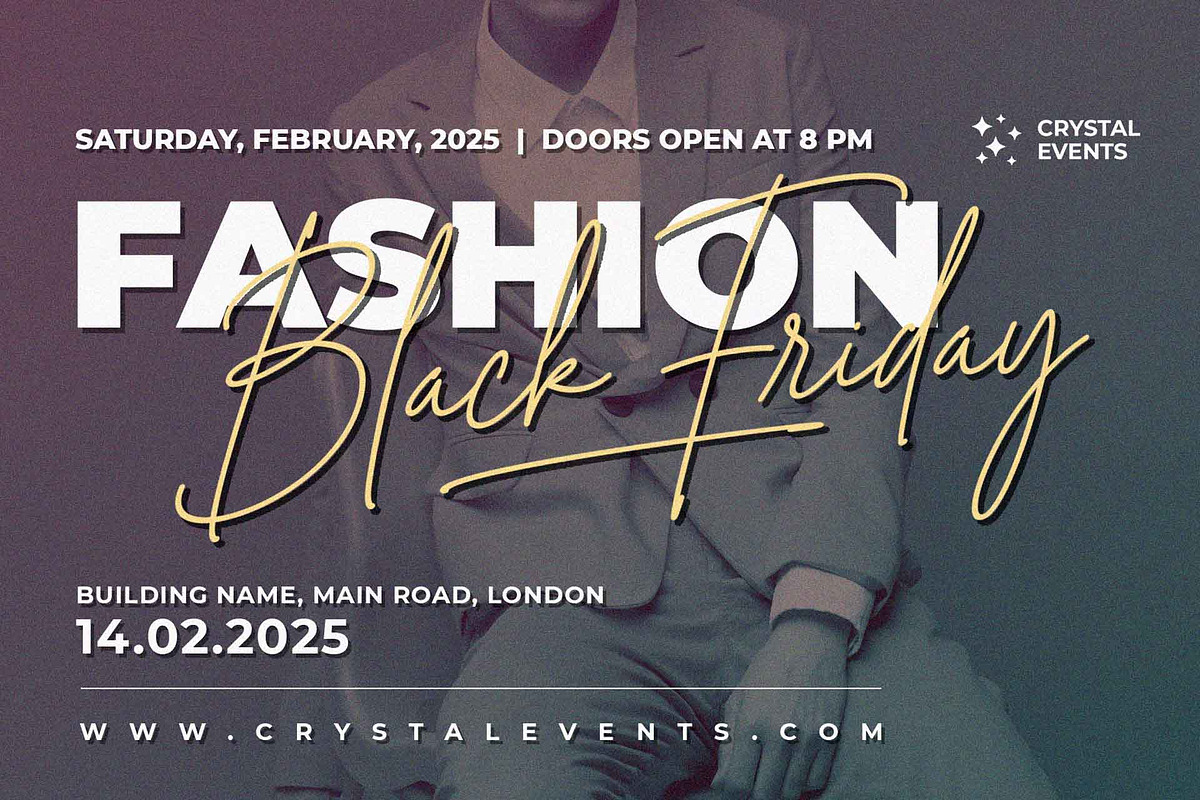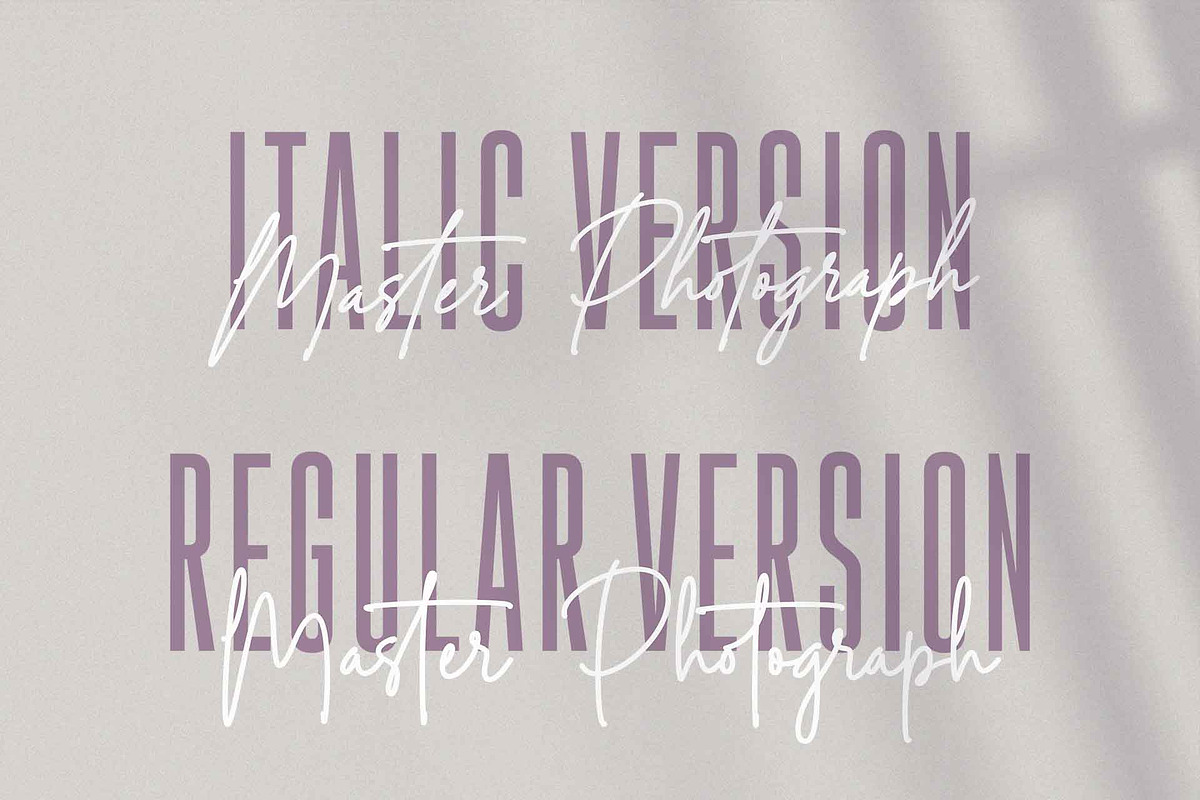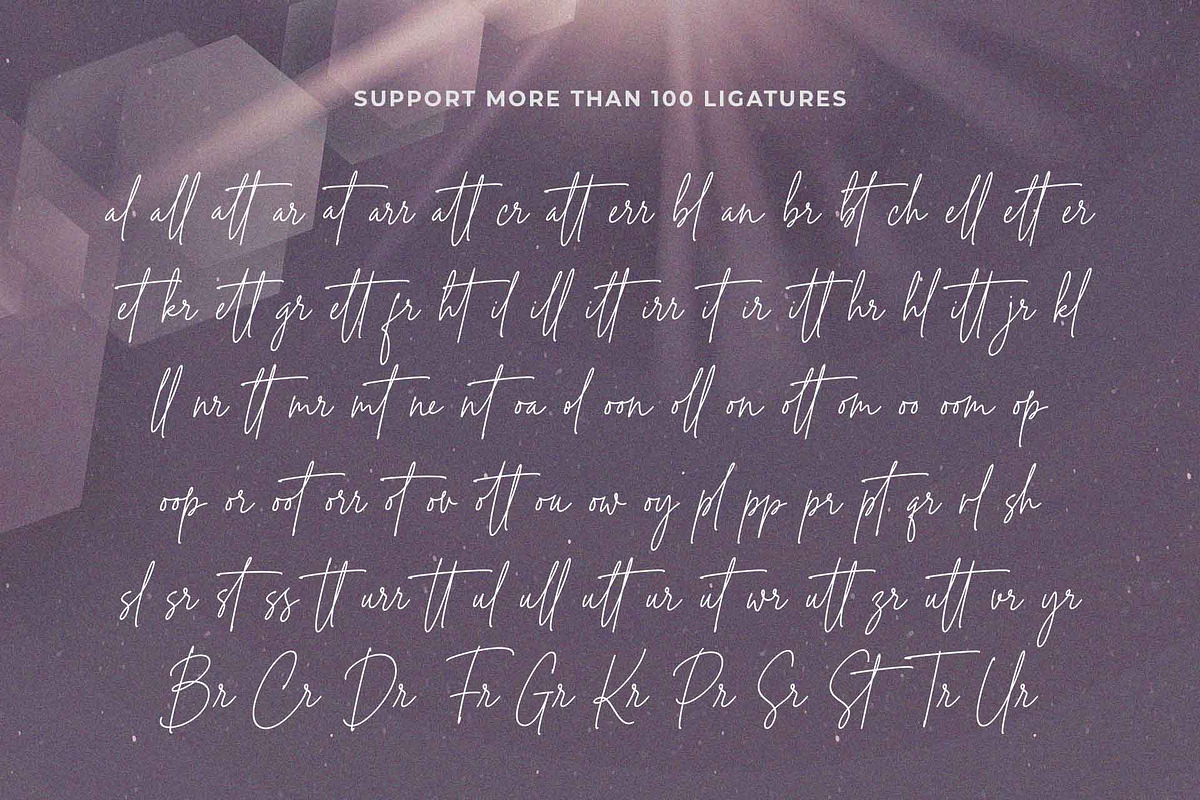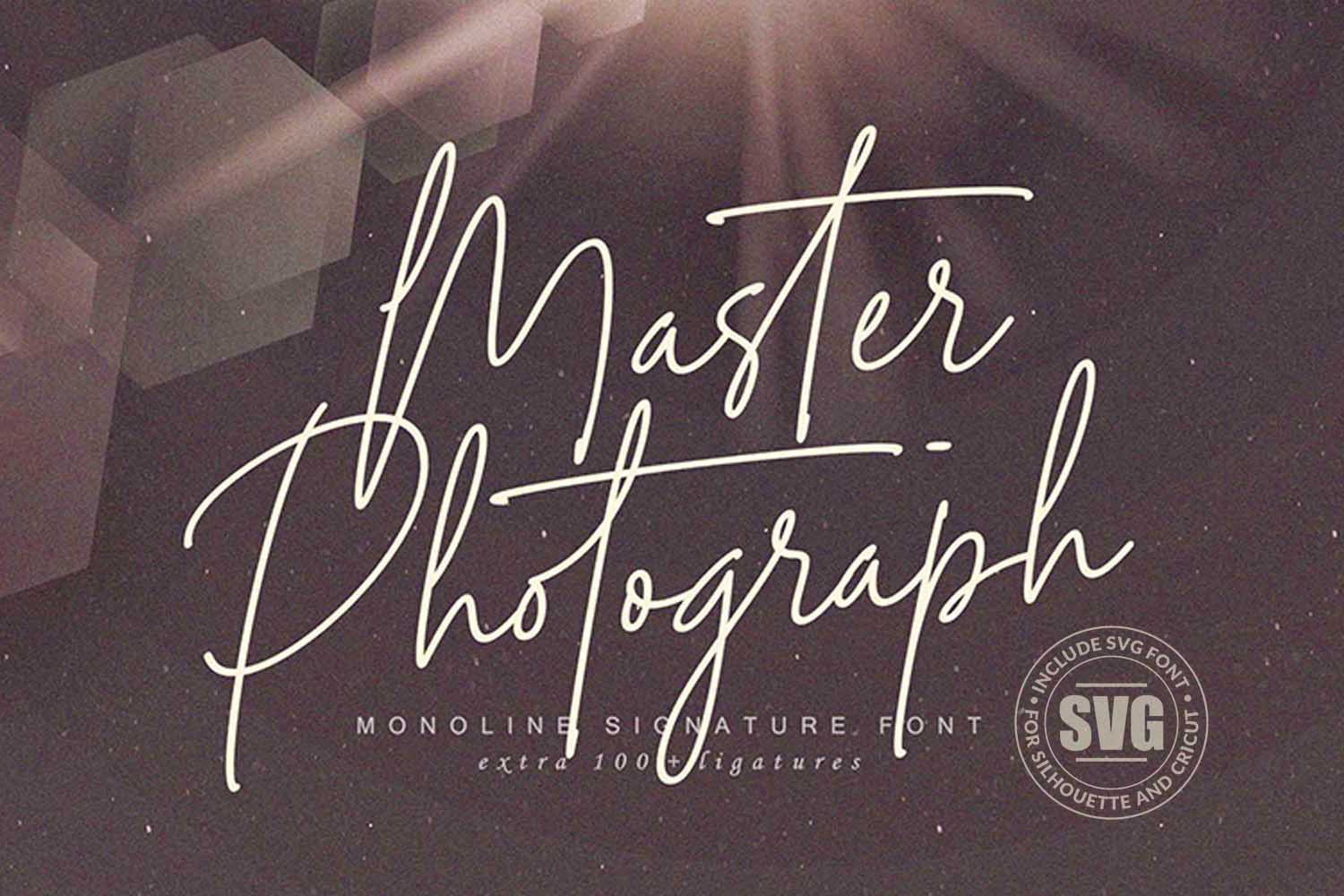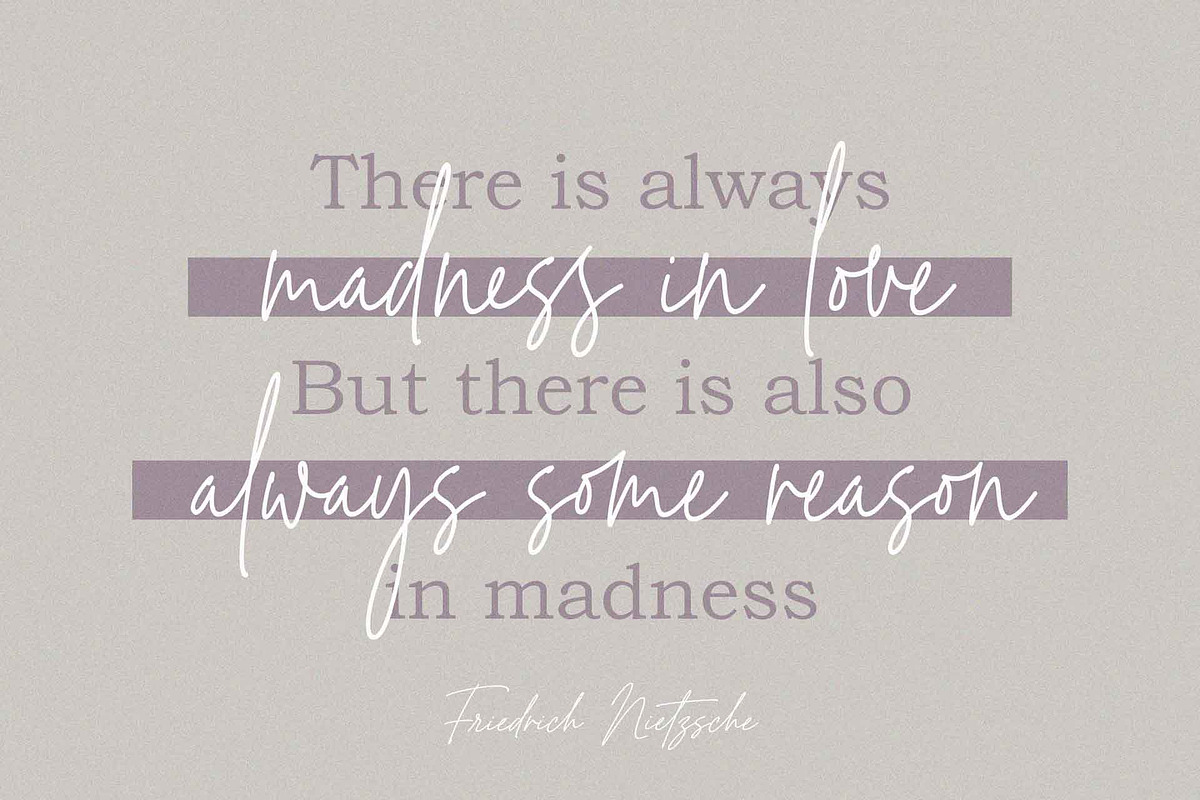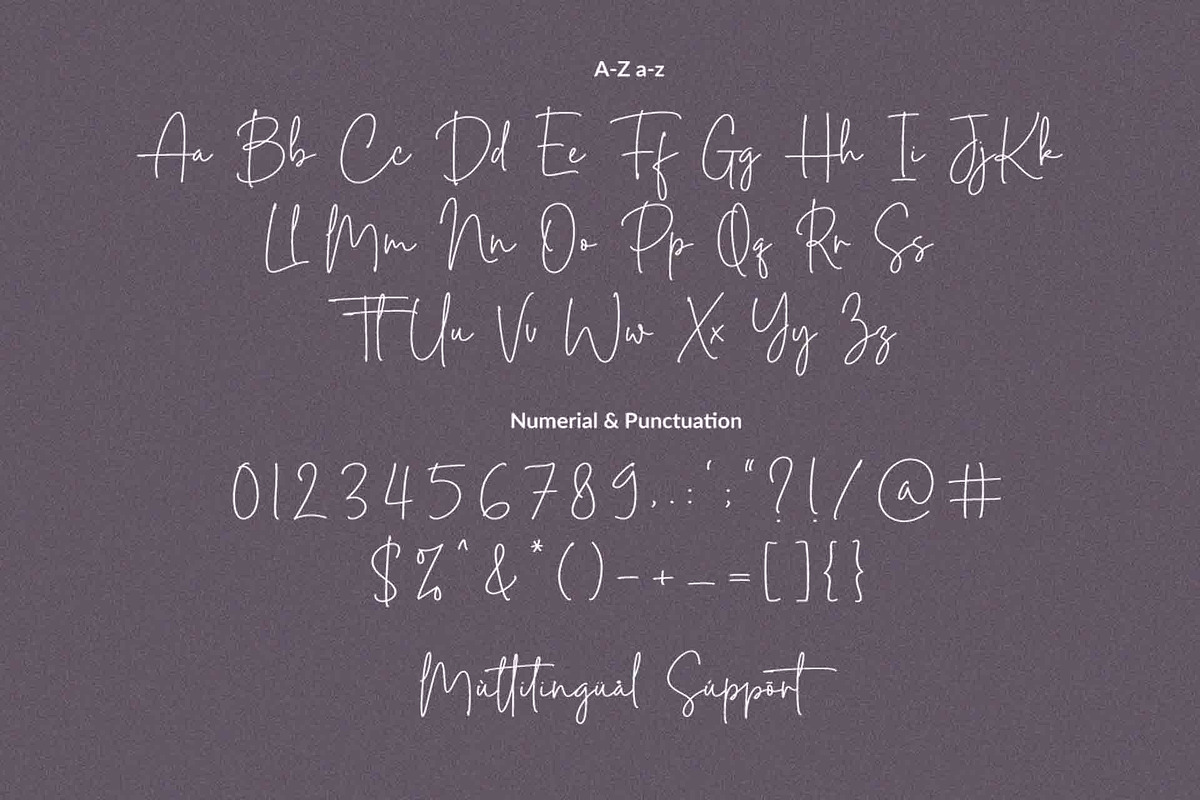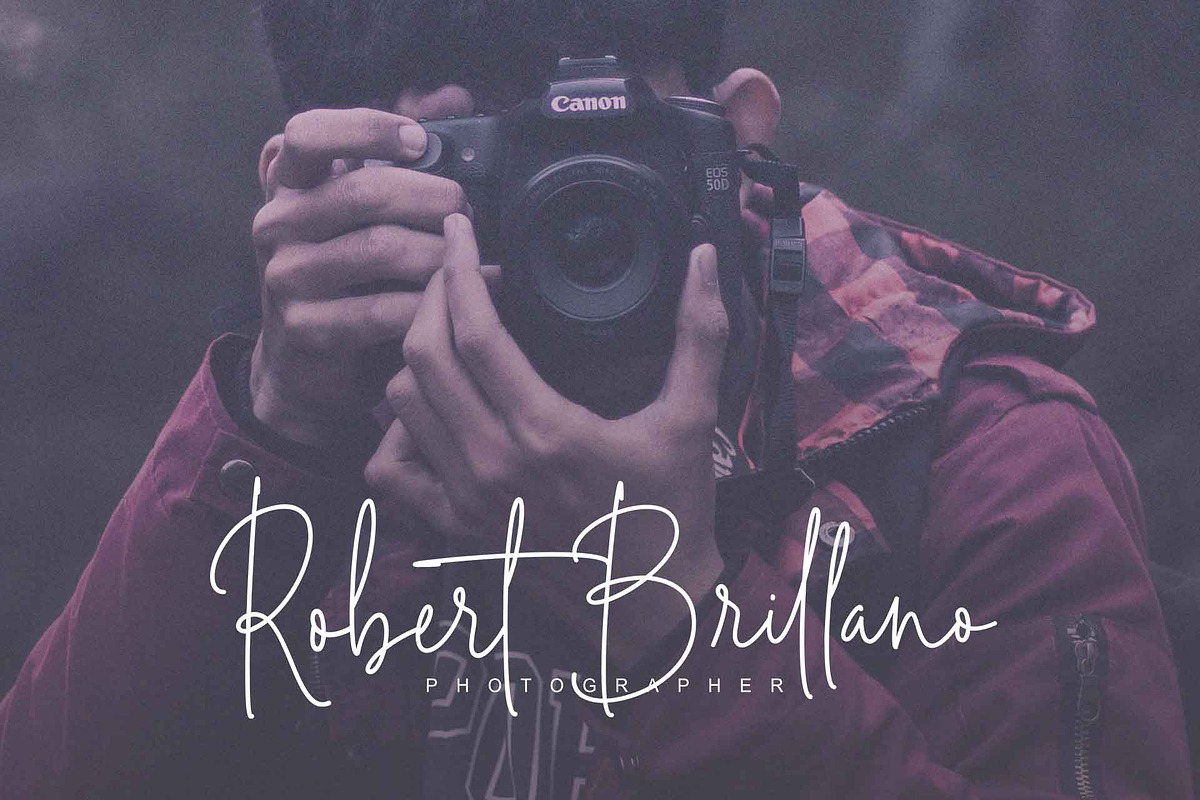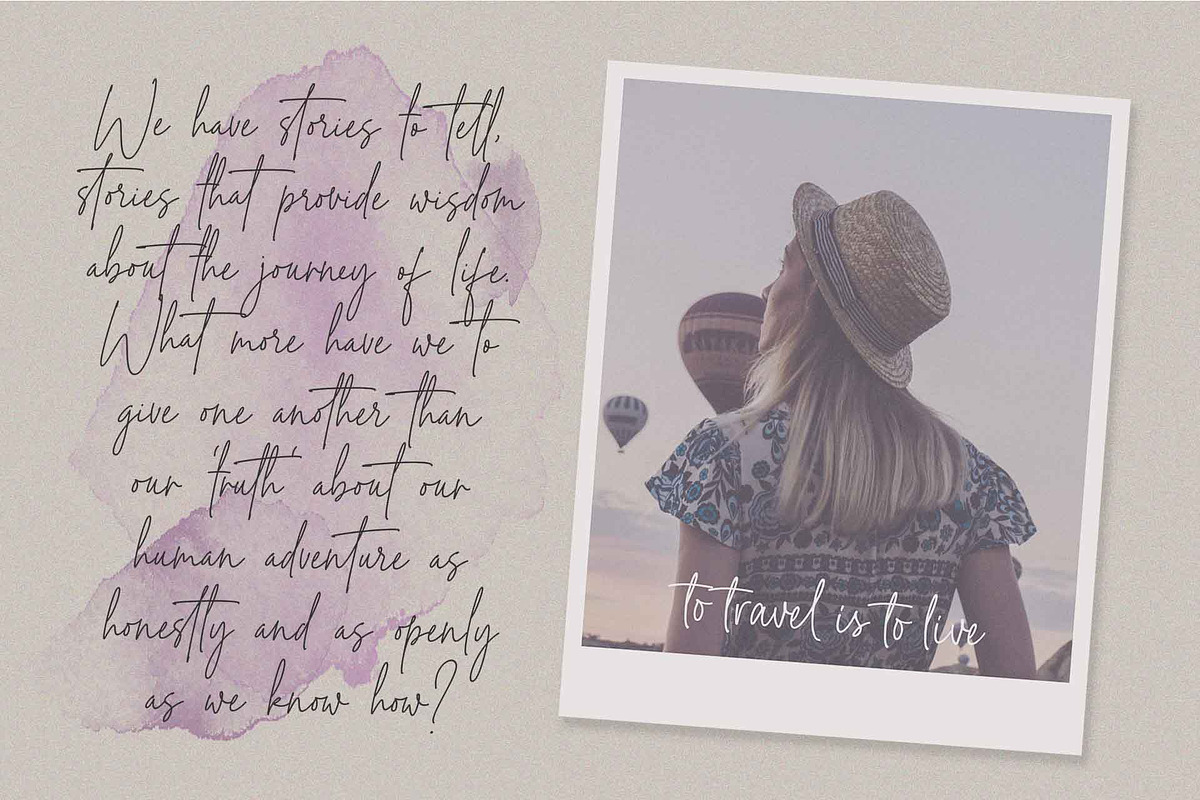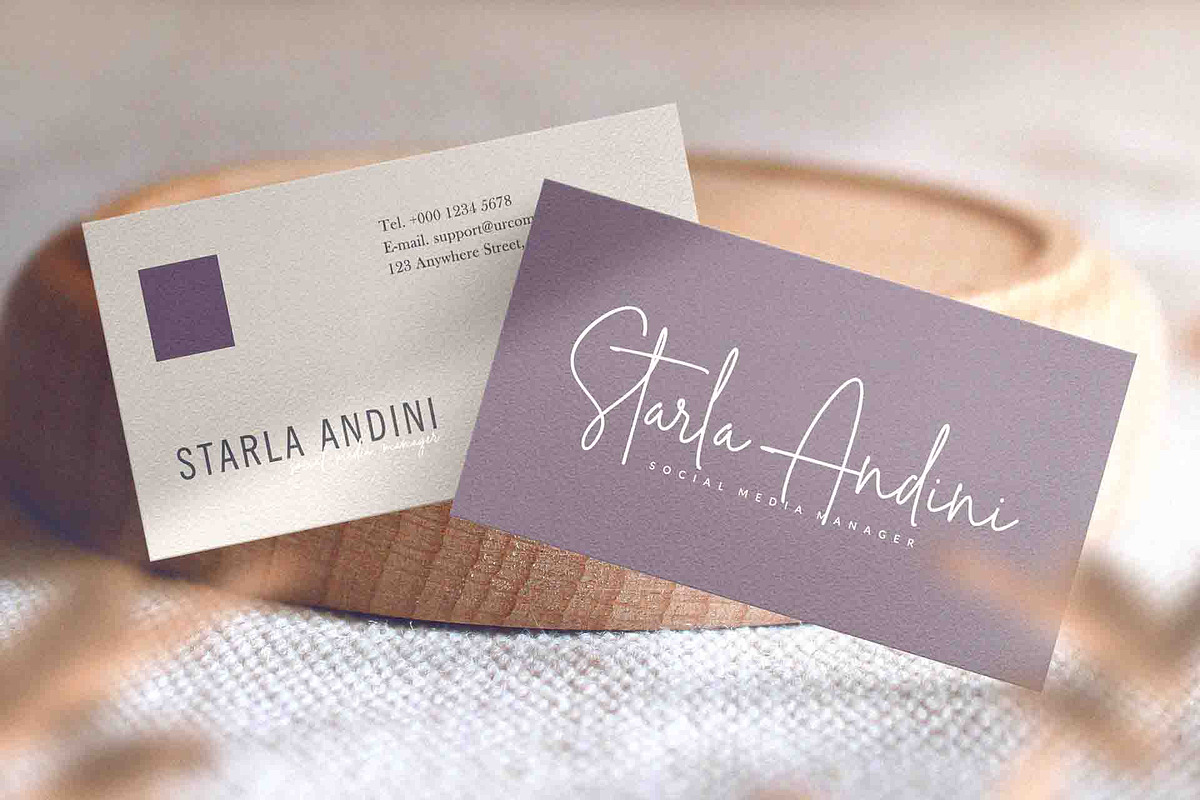
Master Photograph - Signature font
Master Photograph is a Monoline Signature Font, font with a touch of handwriting style. This font is perfect for creating signature logos and watermarks for photography studio or wedding invitation.
Master Photograph includes full set of beautifull hand lettered uppercase and lowercase letters, numerals, a large range of punctuation and many beautiful ligatures.